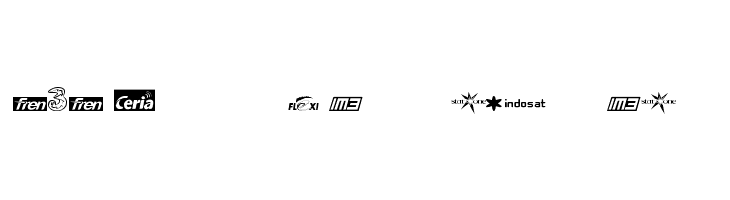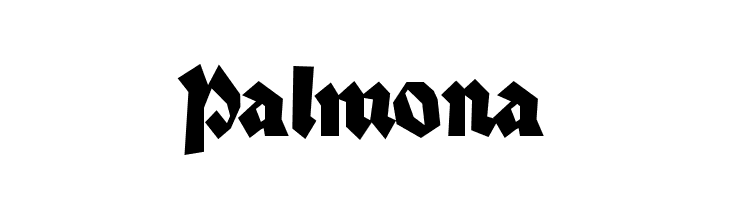
( Fonts by Ingo Zimmermann - www.ingofonts.com )
A bold, blackletter font with sharp, angular forms and high contrast strokes.
( Fonts by Fizzetica DepokAsiana TypeFoundry - fizzeticatypefoundry.tumblr.com )
A mix of bold, modern, and decorative logotype fonts for branding.
A bold, italicized font with a futuristic, geometric design and a unique half-tone effect.
A futuristic, geometric font with clean lines and a minimalist aesthetic.
( Fonts by olivetype )
A playful, handwritten font with a friendly and casual style.
A bold, futuristic font with geometric shapes and sharp angles.
( Fonts by Khrys Bosland )
A playful, hand-drawn font with wavy lines and a casual style.
A playful and romantic cursive script font with elegant, flowing strokes.
( Zetafonts - www.zetafonts.com )
A bold, italic font with a modern and dynamic style.